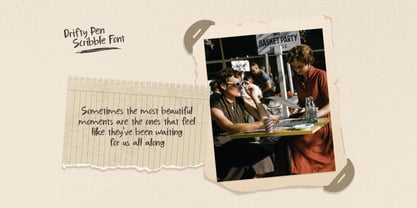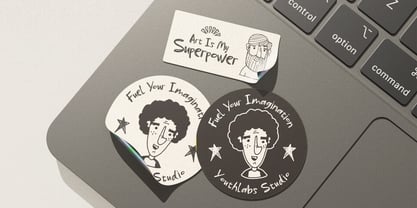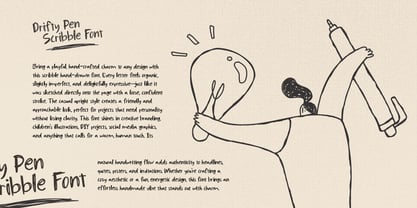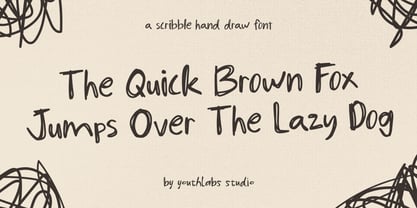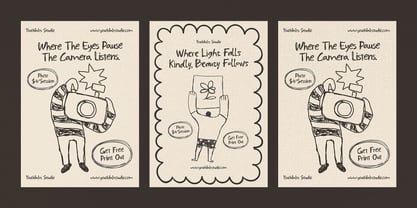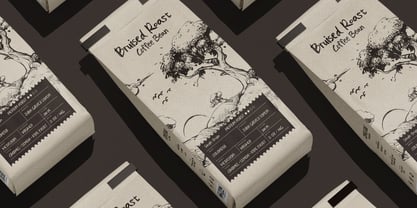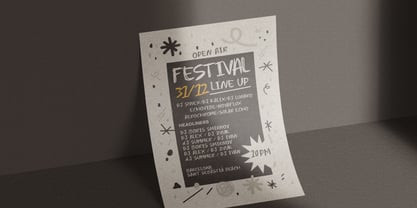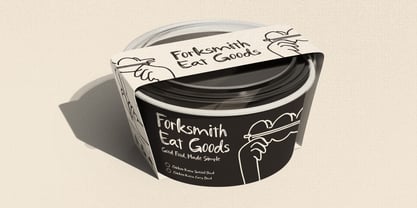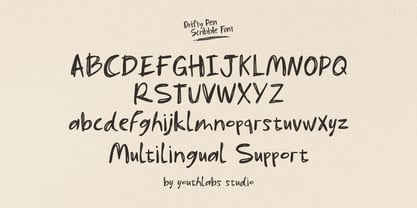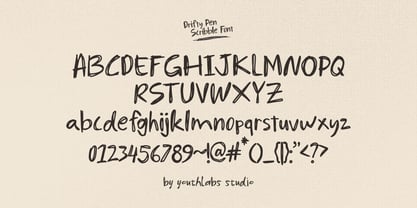
Drifty Pen
von Youthlabs
Die Schriftfamilie Drifty Pen wurde von Fathi Al Ghazi entworfen und von Youthlabs veröffentlicht. Drifty Pen enthält 1 Stile.
Drifty Pen is a playful scribble hand-drawn font that brings the charm of messy doodles straight into your designs. With its loose strokes, uneven curves, and handwritten spontaneity, this font captures the feeling of writing freely with a marker on paper. Perfect for creative projects like kids’ illustrations, branding, notes, quotes, social posts, and casual graphic elements. Drifty Pen adds authenticity, warmth, and a fun handmade touch wherever it appears. ✨ Key Features: Hand-drawn scribble style Playful and casual character design Natural marker-pen texture Uppercase & lowercase letters Punctuation & symbols included Smooth and friendly readability Perfect for notes, quotes, branding, and children’s themes Great for posters, social media, stickers, planners & more